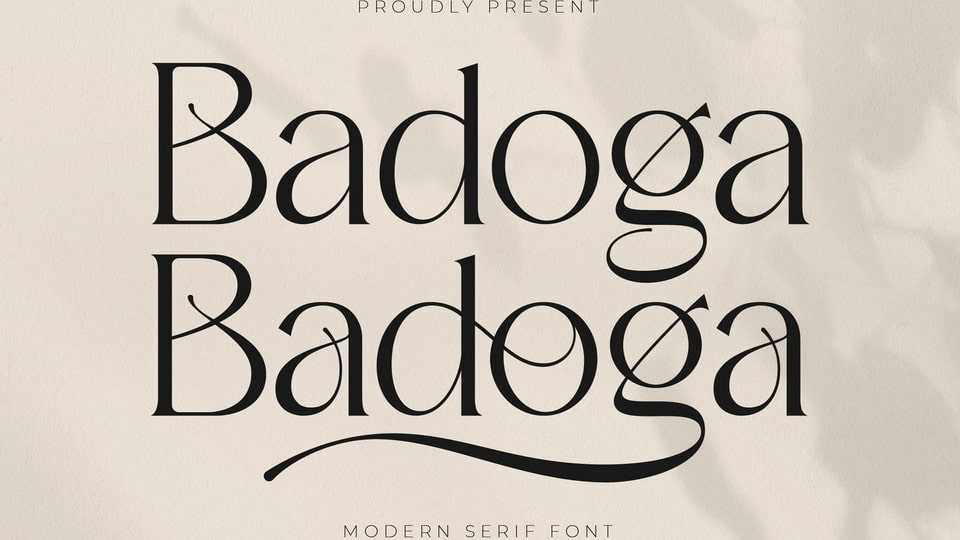
Download Badoga font, a delicate serif typeface that has own unique style and modern look. Badoga font is perfect for an elegant and luxury logo, book or movie title design, fashion brand, magazine, clothes, lettering, quotes, and so much more.